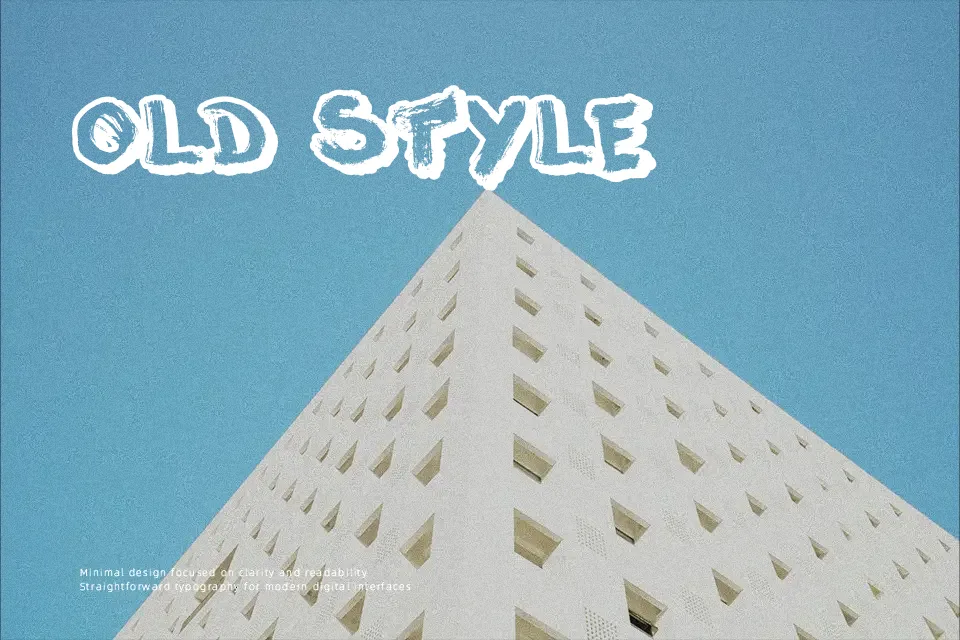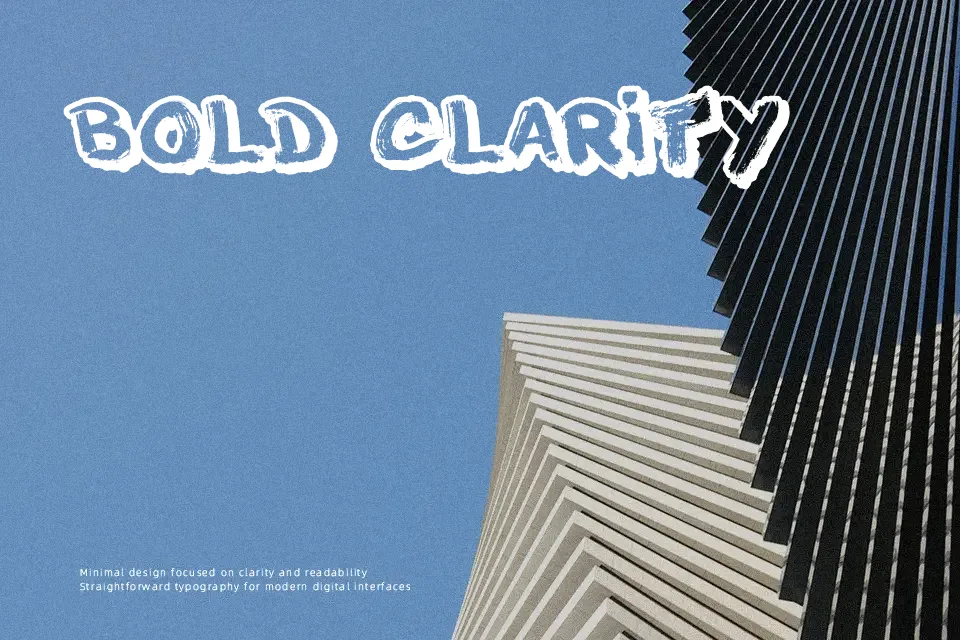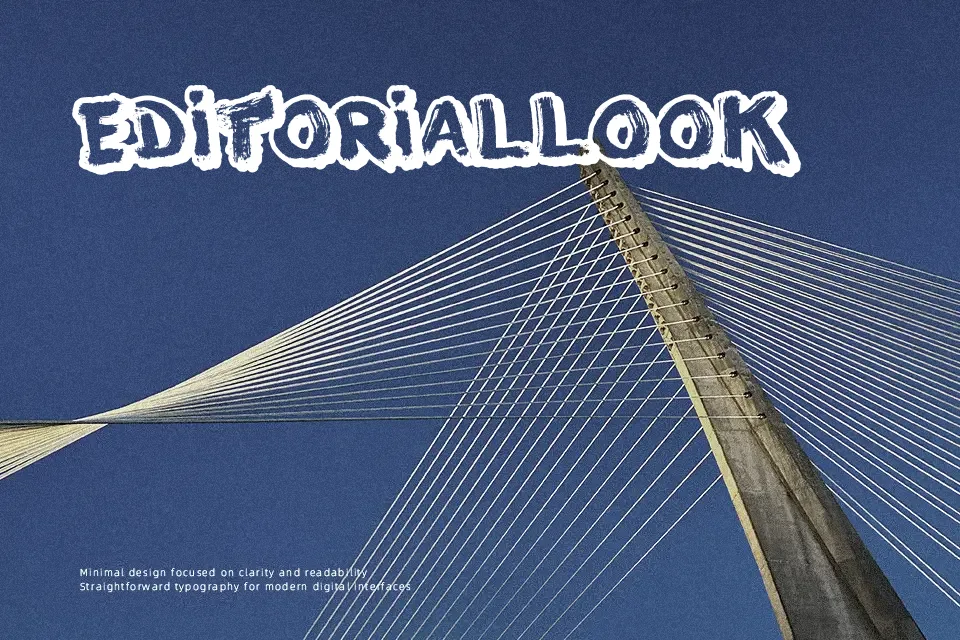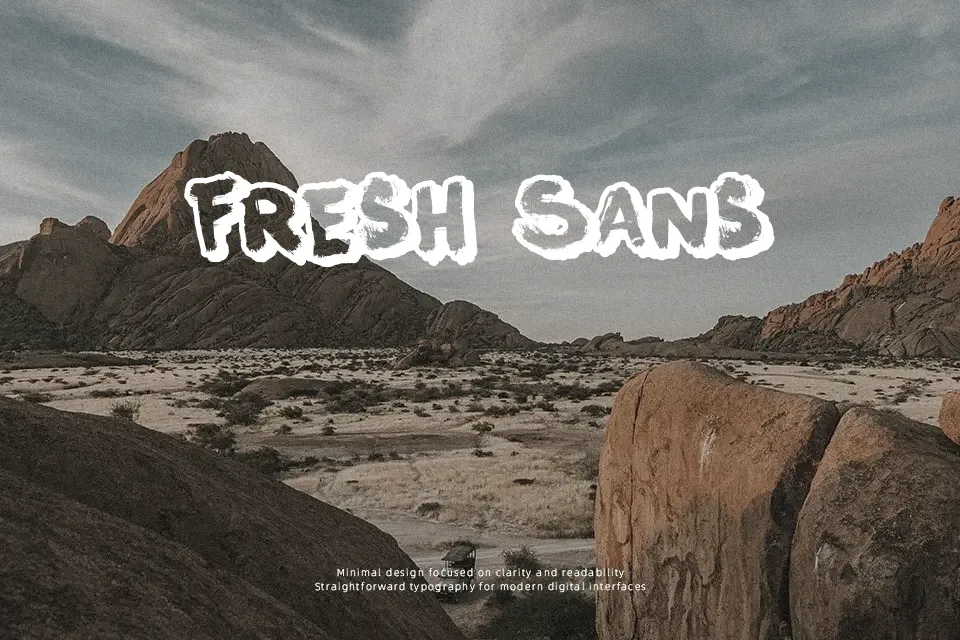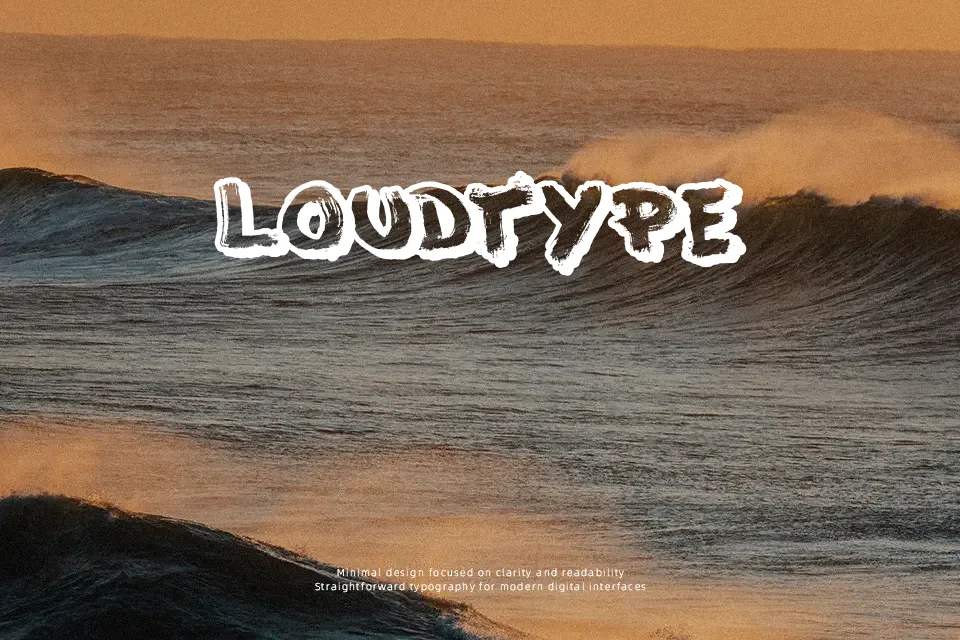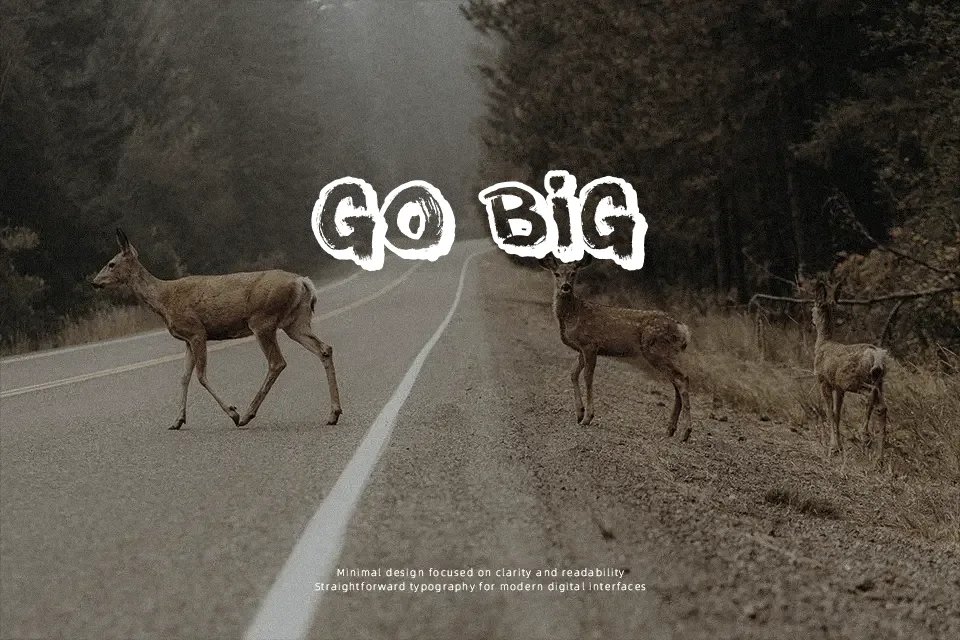
This Night Font
This Night Font showcases a raw decorative display structure shaped by rough contours and visceral grunge textures. The letterforms feature uneven stroke weights and sharp, distressed terminals that create an immediate sense of tension. Character proportions remain compact, while tight spacing produces a dense, unified block of text suitable for large-scale cinematic headlines and Halloween event signage. However, this dense styling drastically impairs legibility when scaled down to continuous body copy or subtle interface labels. The typeface performs best when displayed at larger sizes where individual eroded edges enhance the grim visual atmosphere rather than muddling the composition.
Best For: Halloween event posters, horror film title sequences, dark mystery book covers, haunted attraction signage
Not Ideal For: continuous body copy, corporate annual reports, mobile app interface text, long editorial paragraphs
Perfect for film, gaming, and halloween, with a dark and decorative style.